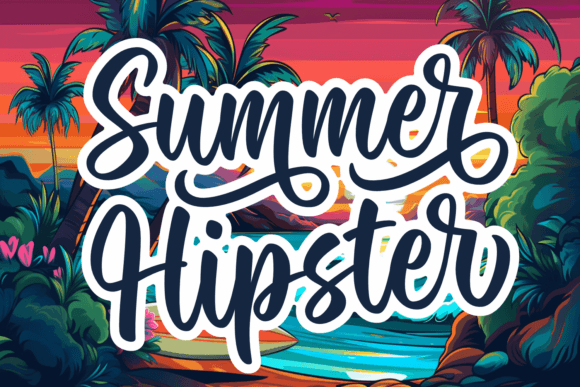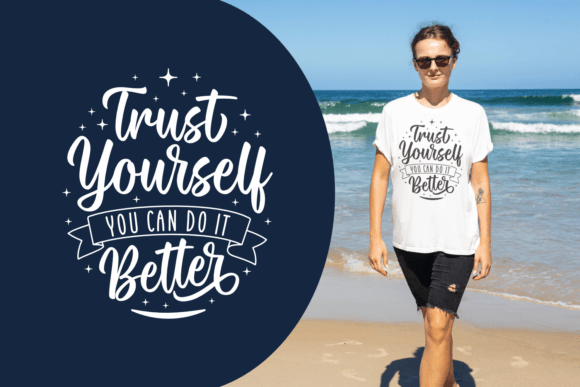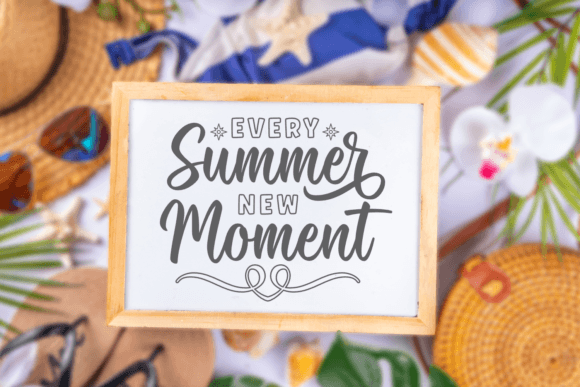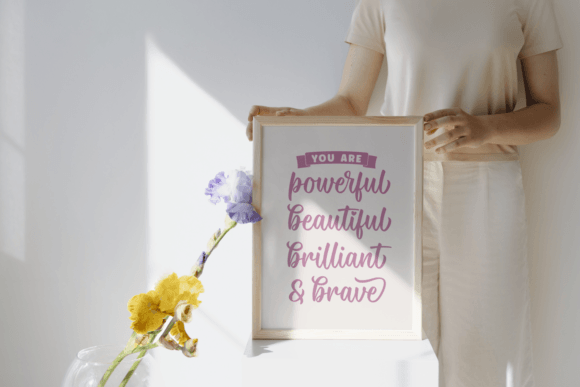
Summer Hipster Font
About the Summer Hipster Font
Add a touch of class to your work with the Summer Hipster Font, a truly exceptional typeface. Summer Hipster is a happy handwritten font that will bring your design into a happy and fun mood. This font is perfect for branding, packaging, logotype, headline, wedding invitation, etc.
Summer Hipster Font Usage Examples
Summer Hipster Font Example